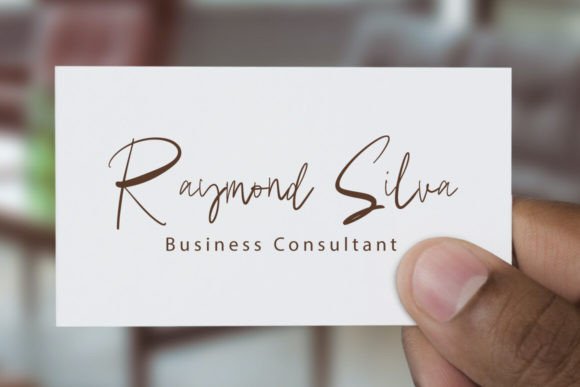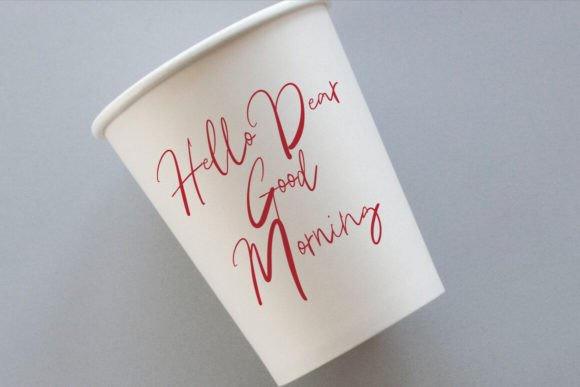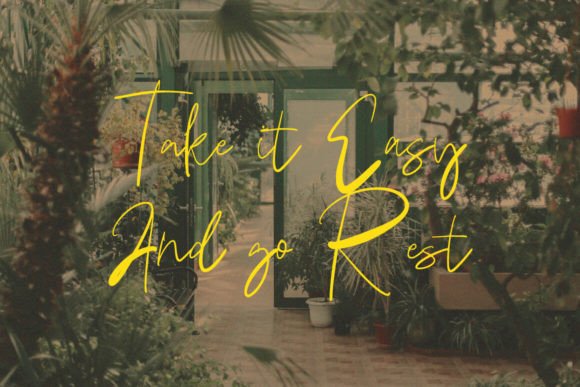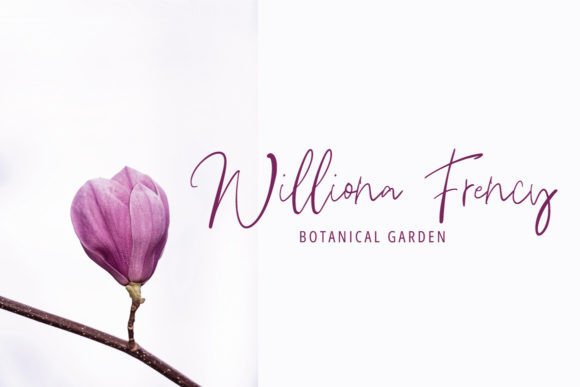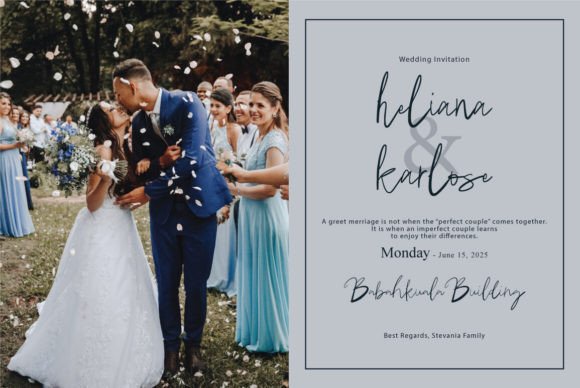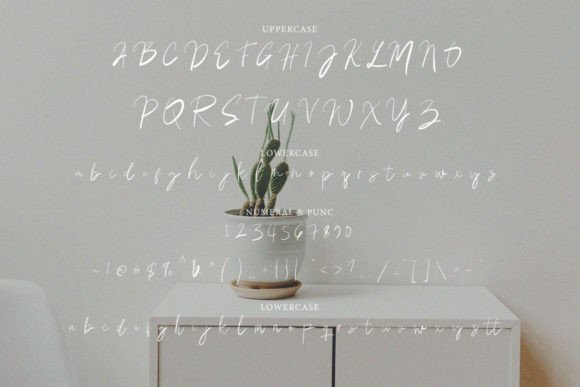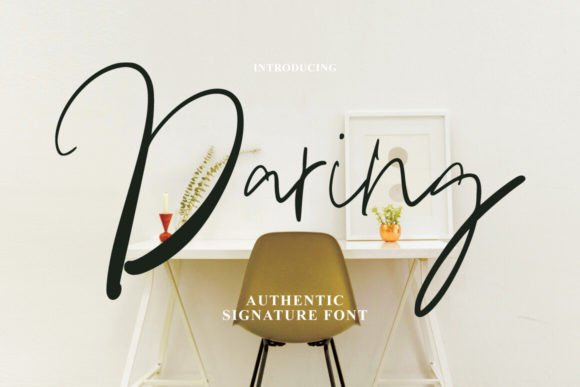
Daring Font: Elevate Your Designs with a Handmade Signature Style
Are you tired of using ordinary fonts that fail to make your designs stand out? Look no further than the Daring Font, a stunning typeface that combines a handmade signature style with decorative characters and a dancing baseline. This beautiful font is perfect for designers and crafters who want to add a touch of elegance and sophistication to their work.
What is Daring Font?
Daring Font is a unique and eye-catching typeface that is designed to add a personal touch to your designs. With its handmade signature style, decorative characters, and dancing baseline, this font is sure to make your work stand out from the crowd. Whether you’re creating invitations, greeting cards, branding materials, business cards, quotes, posters, or any other type of design, Daring Font is the perfect choice.
Key Features of Daring Font
• Handmade Signature Style: Daring Font features a beautiful handmade signature style that gives your designs a personal and elegant touch.
• Decorative Characters: The font includes a range of decorative characters that can be used to add a touch of whimsy and sophistication to your designs.
• Dancing Baseline: The dancing baseline of Daring Font adds a playful and dynamic touch to your designs, making them more engaging and eye-catching.
Uses for Daring Font
Daring Font is a versatile typeface that can be used for a wide range of design projects, including:
• Invitations: Use Daring Font to create beautiful and elegant invitations for weddings, parties, and other special events.
• Greeting Cards: Add a personal touch to your greeting cards with Daring Font, making them more special and meaningful.
• Branding Materials: Use Daring Font to create unique and eye-catching branding materials, such as logos, brochures, and flyers.
• Business Cards: Make a lasting impression with Daring Font on your business cards, setting you apart from the competition.
• Quotes and Posters: Use Daring Font to create inspiring and eye-catching quotes and posters that are sure to grab attention.
Why Choose Daring Font?
There are many reasons why Daring Font is the perfect choice for designers and crafters, including:
• Unique and Eye-Catching: Daring Font is a one-of-a-kind typeface that is sure to make your designs stand out from the crowd.
• Elegant and Sophisticated: The handmade signature style and decorative characters of Daring Font give your designs an elegant and sophisticated touch.
• Versatile: Daring Font can be used for a wide range of design projects, making it a valuable addition to your font collection.
Tips for Using Daring Font
Here are a few tips for getting the most out of Daring Font:
• Experiment with Different Sizes: Daring Font looks great in a range of sizes, so don’t be afraid to experiment to find the perfect size for your design.
• Pair with Other Fonts: Daring Font pairs well with a range of other fonts, so try combining it with different typefaces to create a unique look.
• Use Decorative Characters: The decorative characters in Daring Font are a great way to add a touch of whimsy and sophistication to your designs.